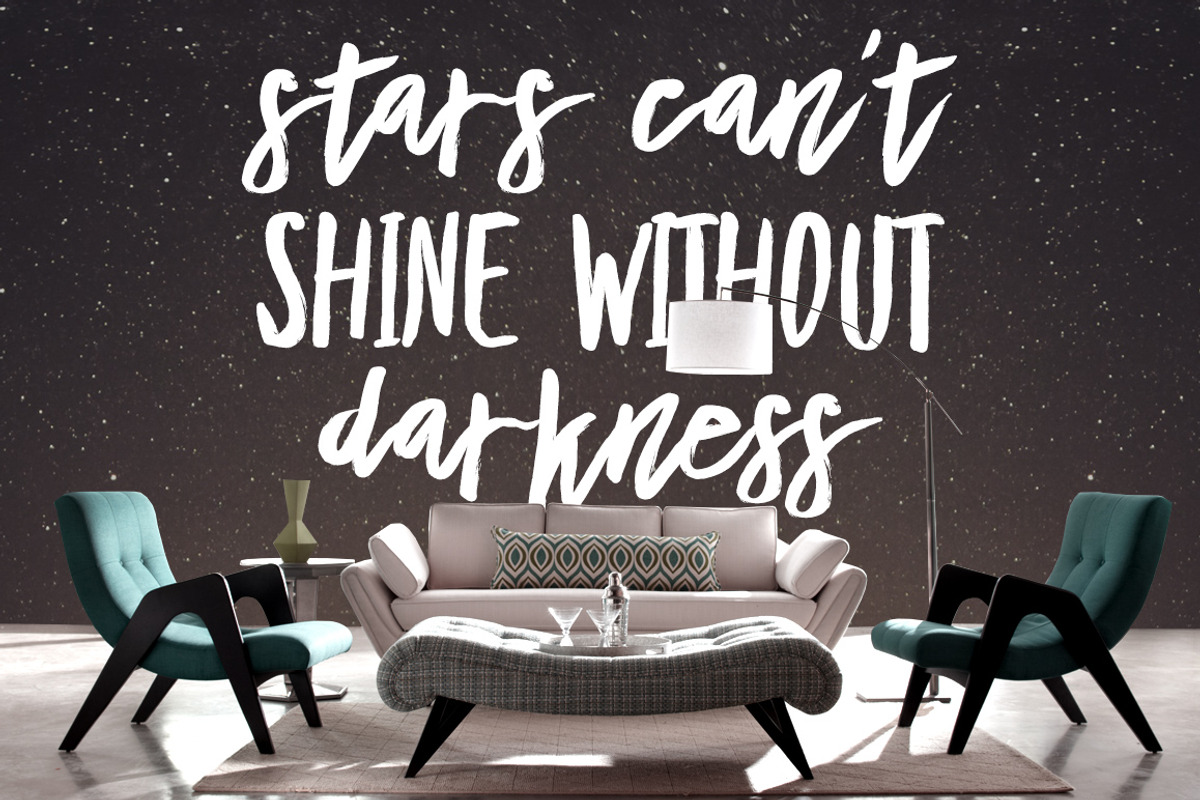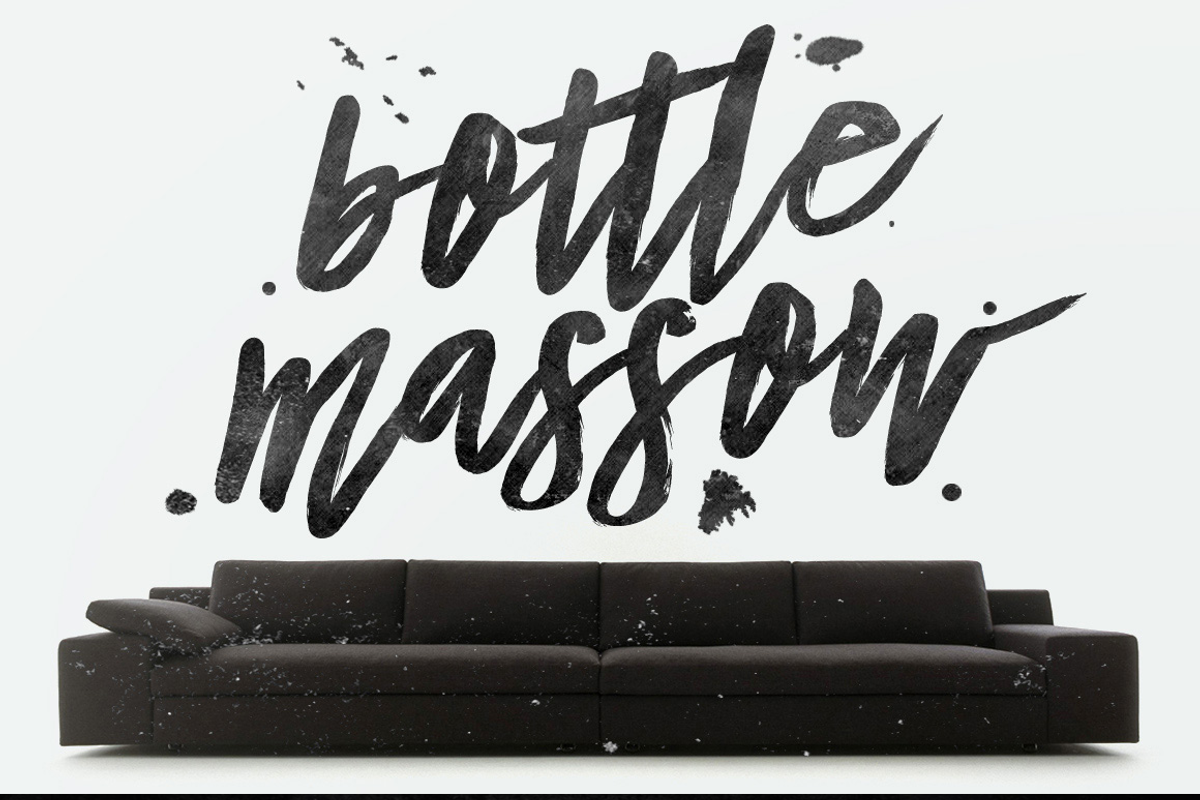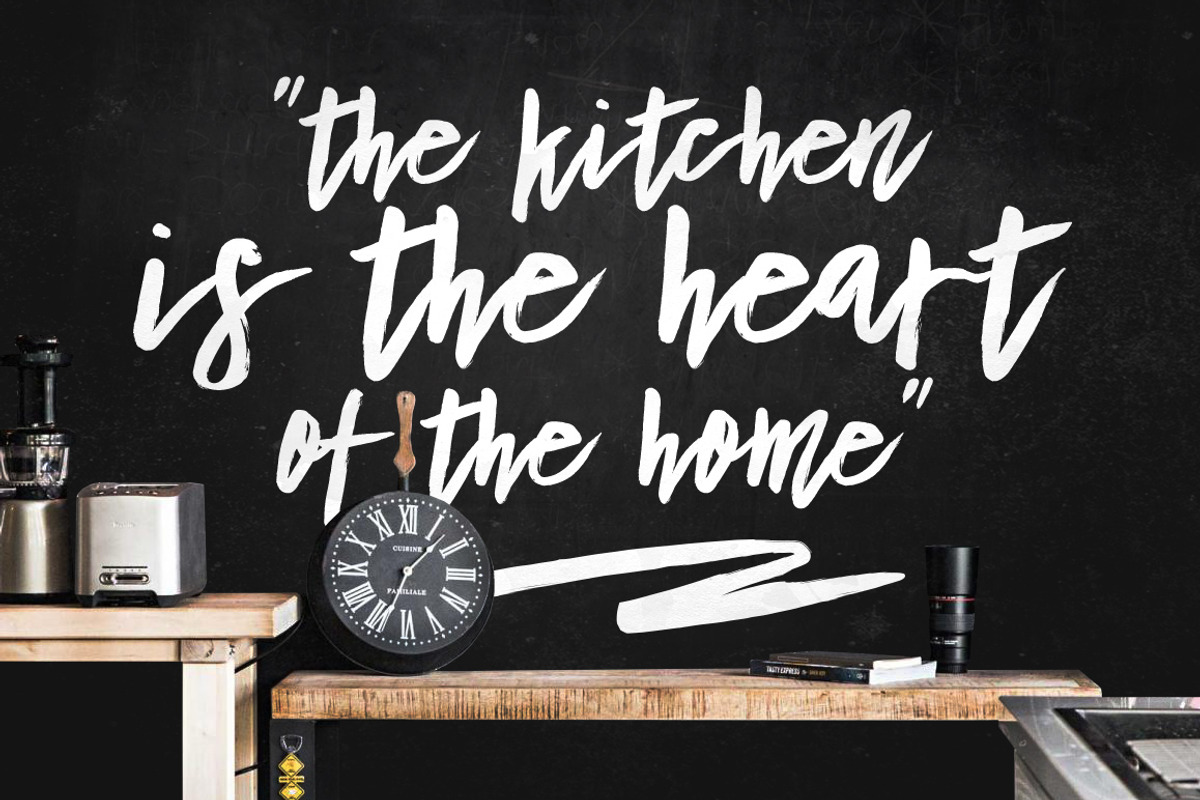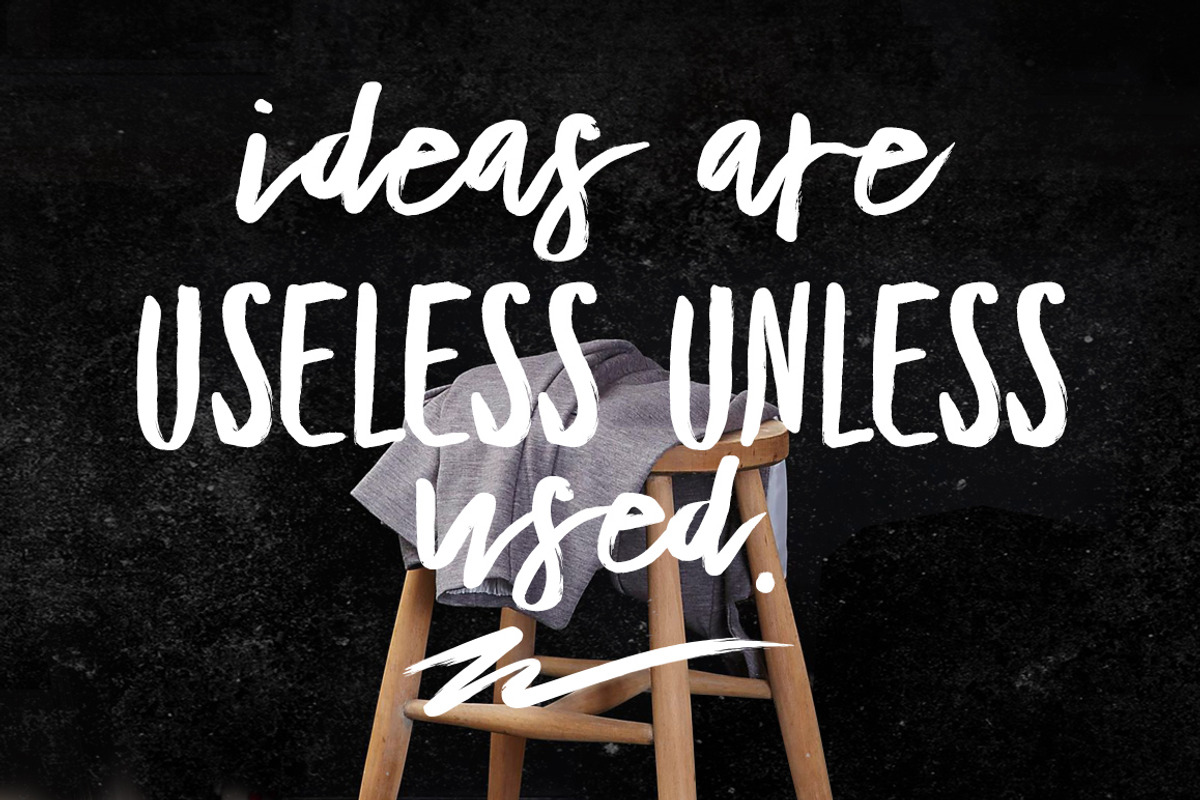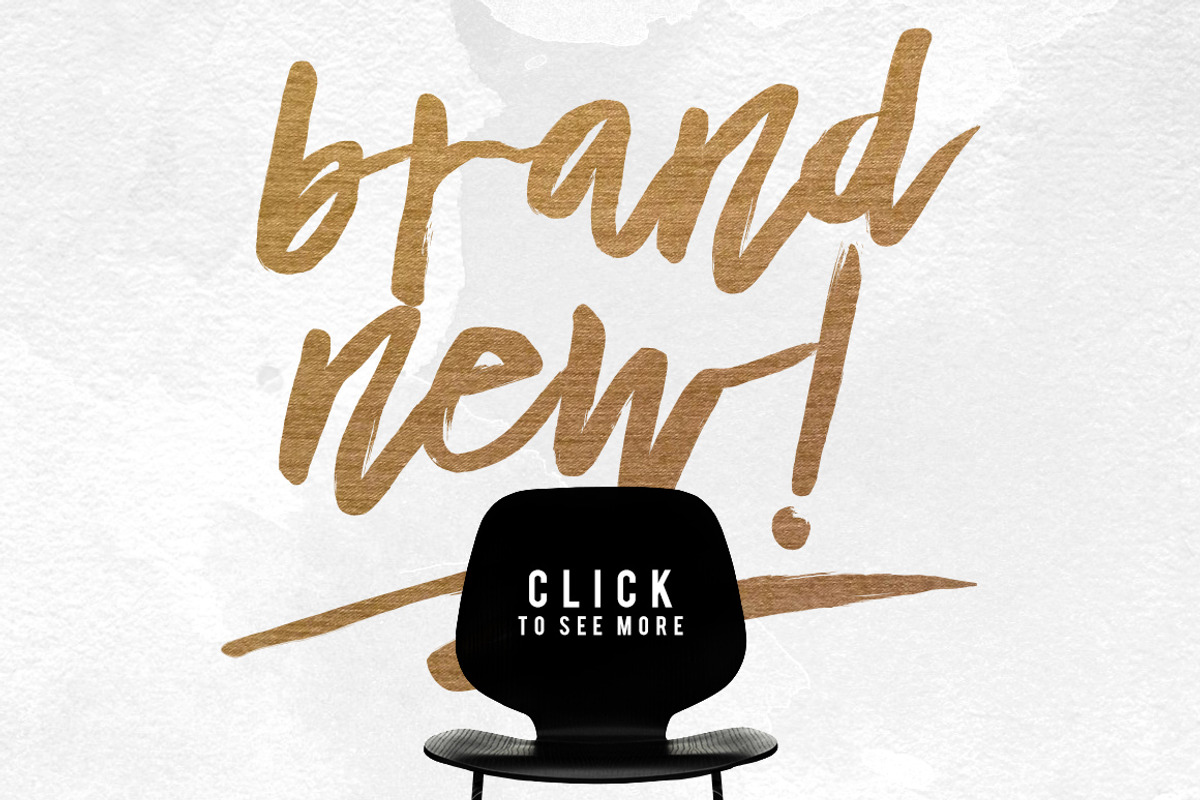
Bottle Massow Brush Script
Give your designs an authentic brush handcrafted feel. “Bottle Massow Brush Script” is perfectly suited to stationery, logos and much more.